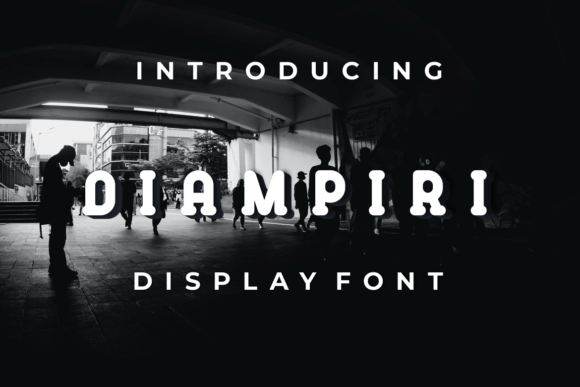
Diampiri Font
Dive into the world of typography with Diampiri, a modern and authentic display font that will captivate your audience. Unleash your creativity and elevate your designs with this font, crafted to perfection by maikofarazhatta.
With its striking and unique character, Diampiri is a font that demands attention. Its bold and assertive strokes command presence, while its subtle curves add a touch of elegance. Whether you're designing logos, posters, or eye-catching headlines, Diampiri's versatility knows no bounds.
But Diampiri is more than just a pretty face. This font is a powerful tool that can transform your words into works of art. Its carefully crafted letterforms ensure perfect readability, even at small sizes, making it ideal for both print and digital media.
Experience the joy of effortless creativity with Diampiri. Its intuitive design and user-friendly features make it a breeze to use, even for beginners. Let your imagination run wild and explore the endless possibilities that await you with this remarkable font.
Step into the spotlight and make a statement with Diampiri. This font is not just a collection of letters; it's a gateway to a world of boundless creativity. Elevate your designs, captivate your audience, and leave a lasting impression.